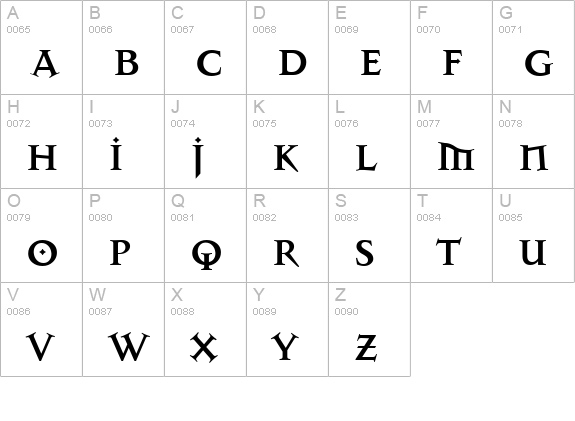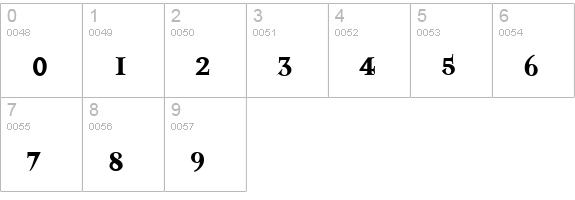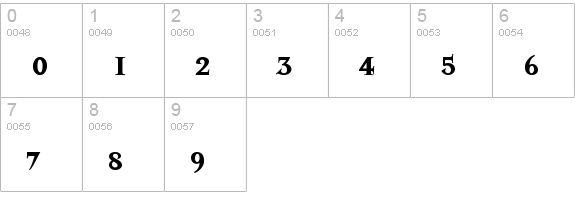
MasonAlternate Bold Font Details
MasonAlternate Bold is a strong, high-contrast variant in the MasonAlternate typeface family \xE2\x80\x94 well suited to headlines, attention-grabbing titles, and strong calls-to-action.
MasonAlternate Bold font is a stunning display font that exudes confidence and boldness. Its strong and striking design makes it perfect for attention-grabbing headlines, posters, and branding materials. The thick, sharp lines of the letters create a powerful impact, demanding attention and leaving a lasting impression. What sets MasonAlternate Bold font apart is not only its impressive aesthetic, but also its availability as a free download. That's right, this incredible font can be freely obtained at FontsMarket.com. With just a few clicks, designers, creatives, and typographers can add this versatile font to their collection without any cost. Whether you're designing a logo for a new business venture or creating eye-catching social media graphics, MasonAlternate Bold font will elevate your designs to new heights. Its modern and distinctive style adds a touch of sophistication and professionalism to any project, making it a valuable asset for both personal and commercial use. The versatility of MasonAlternate Bold font is unmatched. It can be used in a variety of design applications, from print to digital, ensuring that your message is delivered with impact and clarity. Its legibility remains intact even at smaller sizes, making it suitable for body text as well. With its sleek and modern appearance, MasonAlternate Bold font is a true game-changer. It brings a sense of authority and power to any design, making it the go-to choice for those who want to make a statement. So why wait? Head over to FontsMarket.com and download MasonAlternate Bold font for free today, and let your creativity soar to new heights.